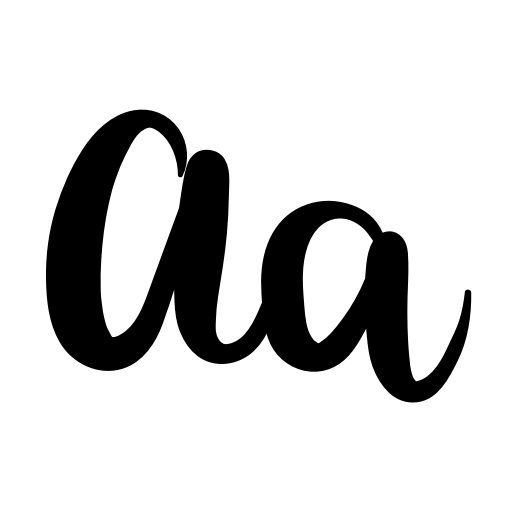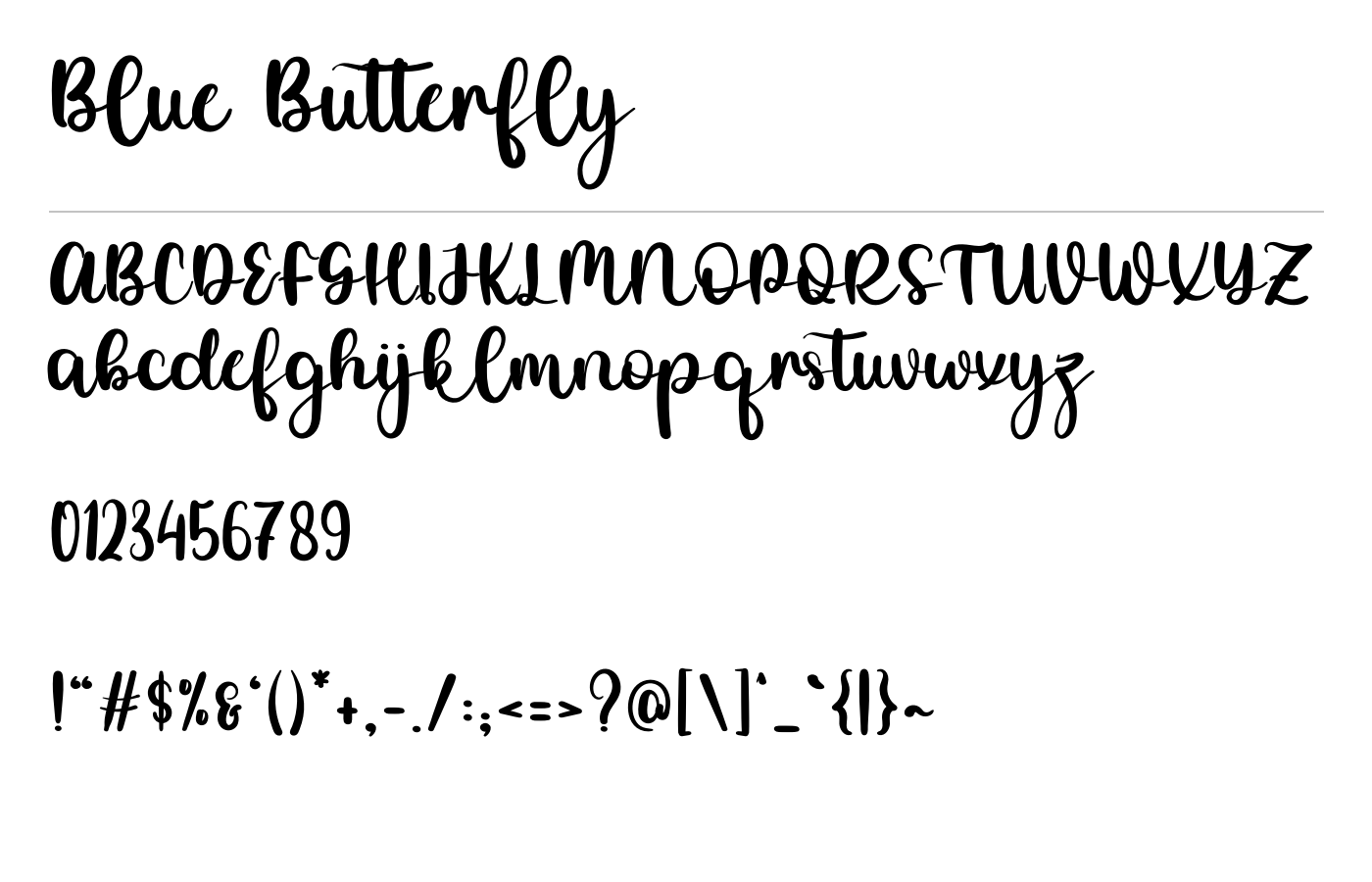
Blue Butterfly is a playful and friendly script font with a smooth, handwritten feel that combines thick and thin strokes for a lively contrast. Its rounded, flowing letterforms with distinctive loops and swashes give it an inviting and casual elegance, making it ideal for creative branding, invitations, and any design needing a warm, personal touch. This font works best in headlines or short texts where its charming personality can really shine.
Blue Butterfly Font
About Blue Butterfly Font